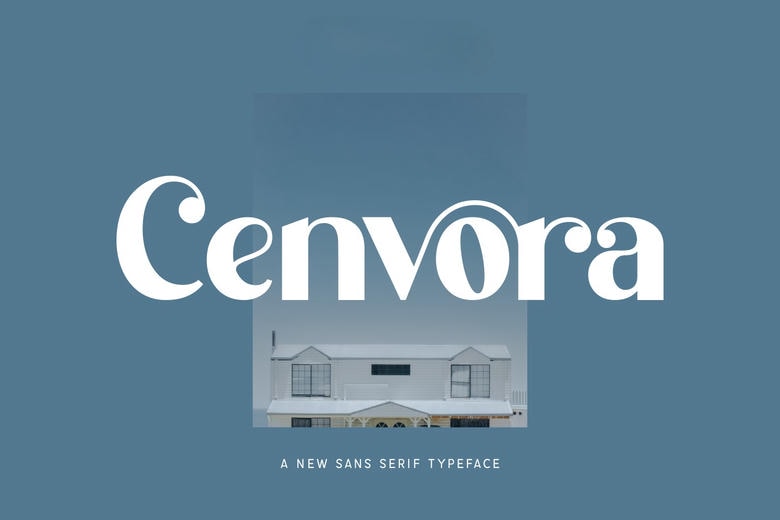
Cenvora Font
Cenvora is an extravagant and a smart sans serif typeface with a prominent character. It has smooth curves and delicate letterforms that make a perfect combination of modern minimalism with minor artistic touches. Cenvora is ideal to be used as branding, editorials, luxurious packaging, and high end marketing materials, and it is a powerful statement that will be easily polished.
Cenvora Sans Serif Font